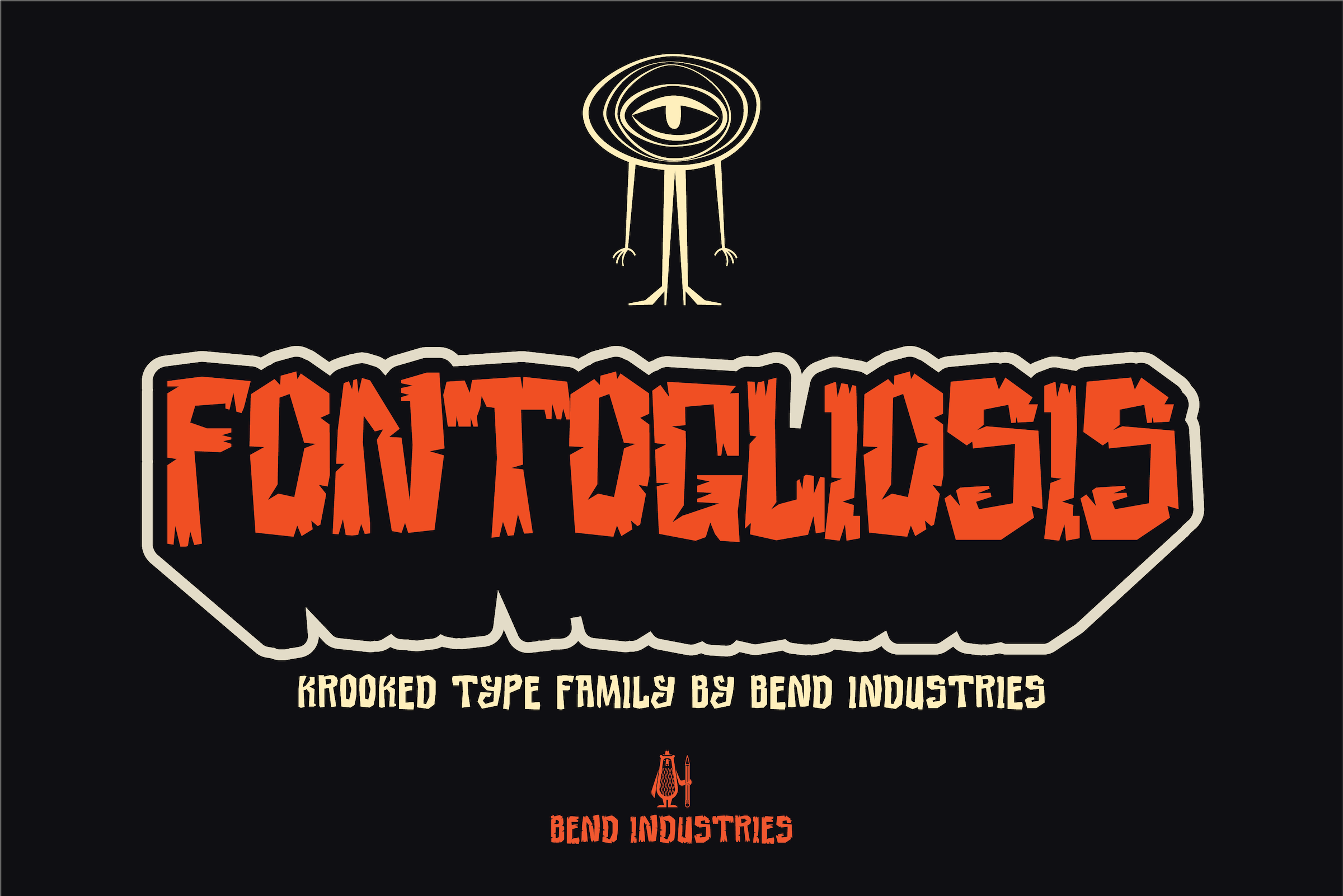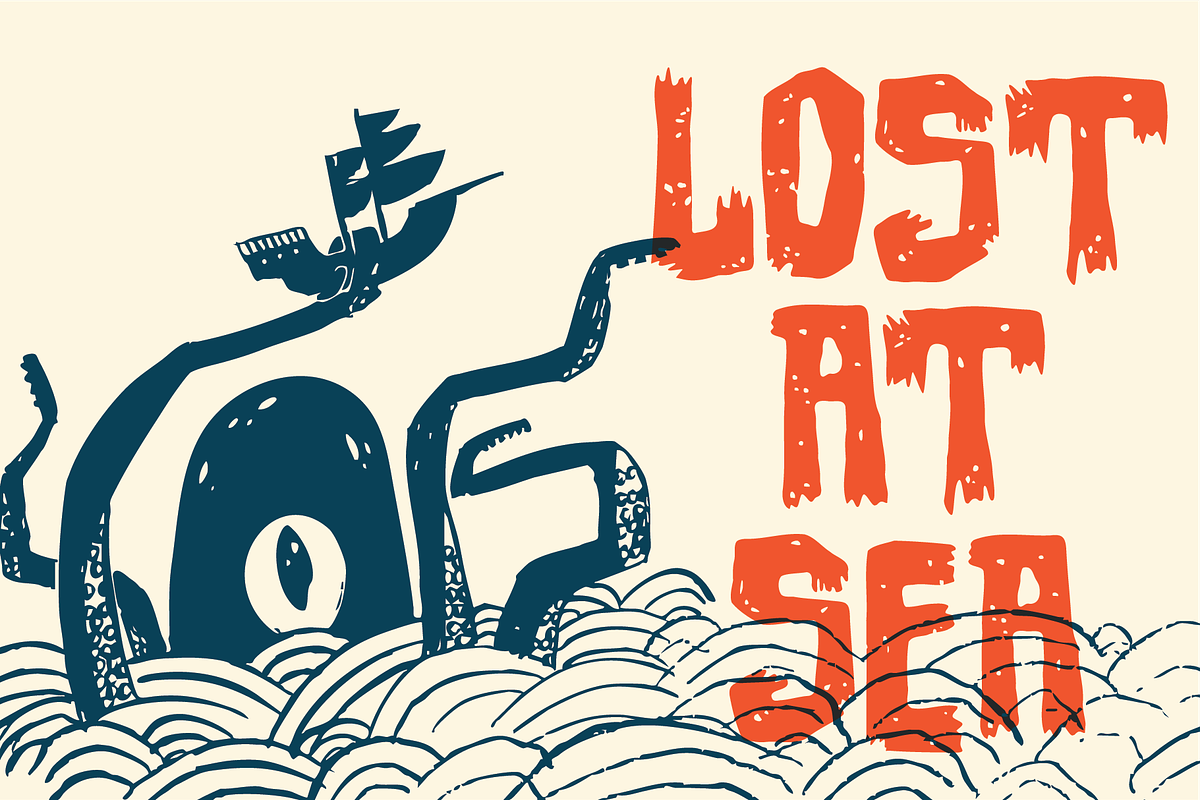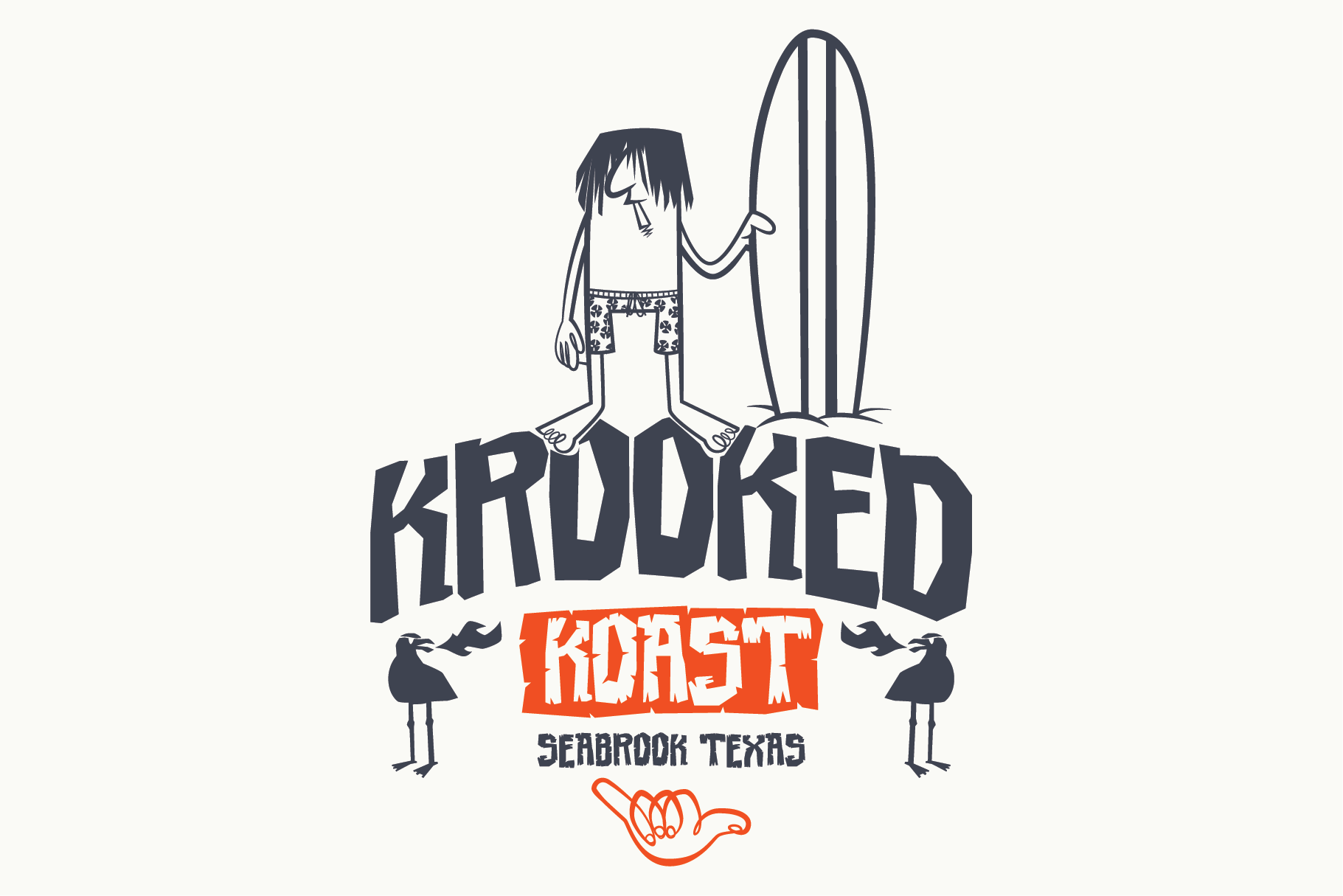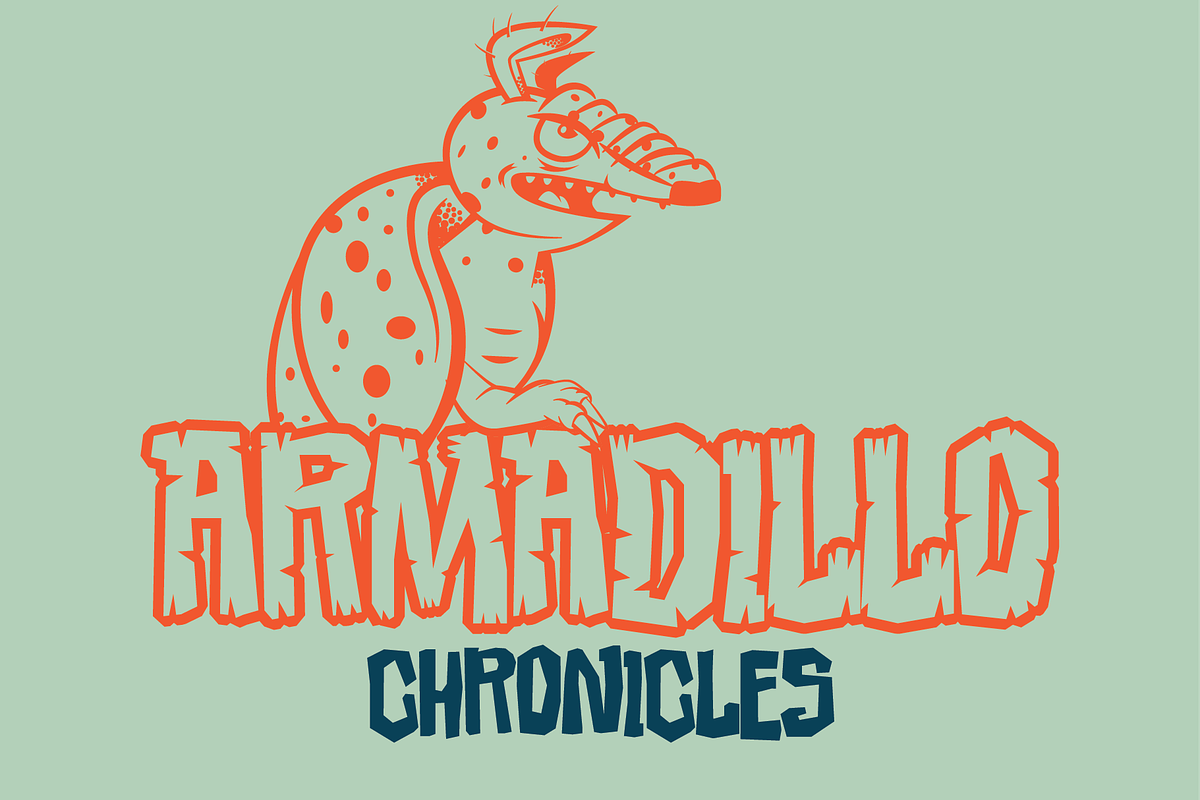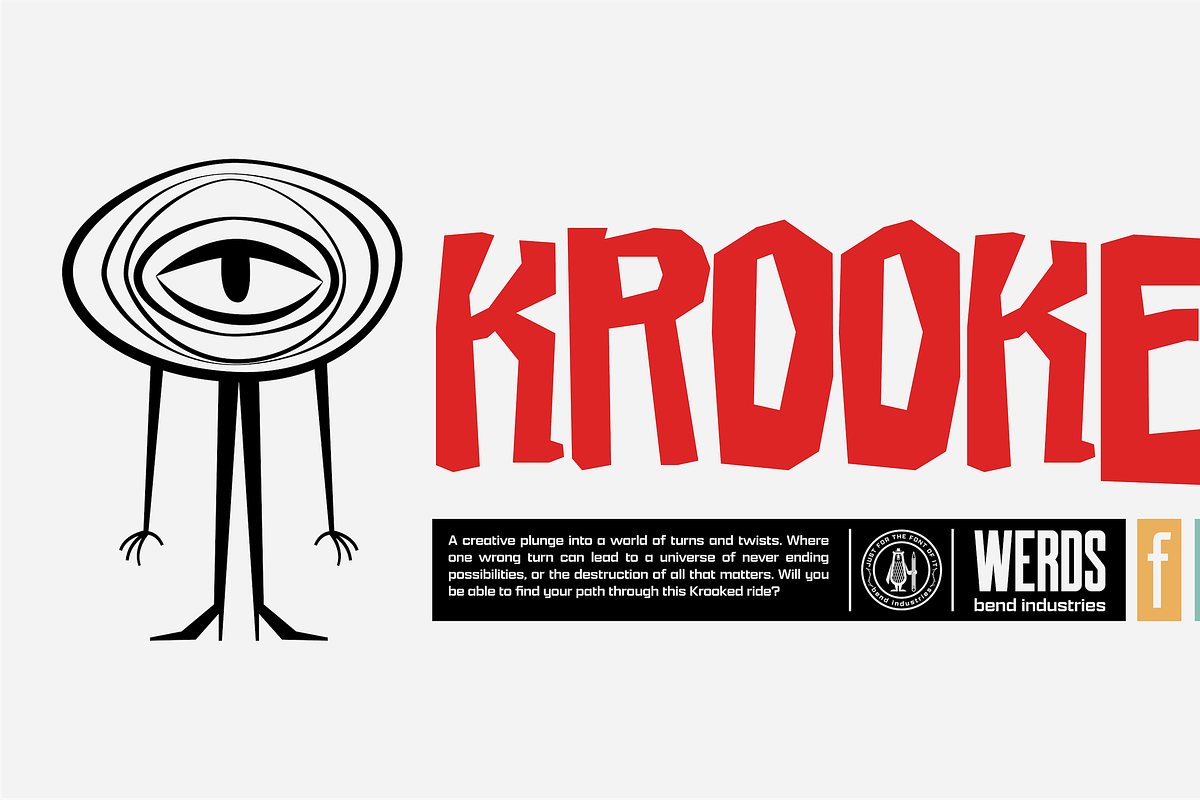
Krooked Typeface
Krooked is a playful, irregular display font family by Bend Industries. Featuring five expressive styles with bold, textured personality, it’s perfect for logos, apparel, posters, and standout branding projects.